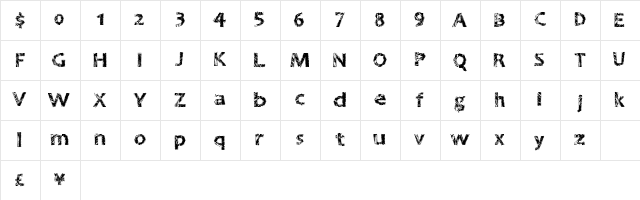
GreatNineties Regular
| Foundry | Xerographer Fonts |
| Designer | Xerographer Fonts Max Infeld |
Design Context for GreatNineties Typeface
GreatNineties is a composed and adaptable typeface that performs quietly and consistently across a wide range of design contexts.